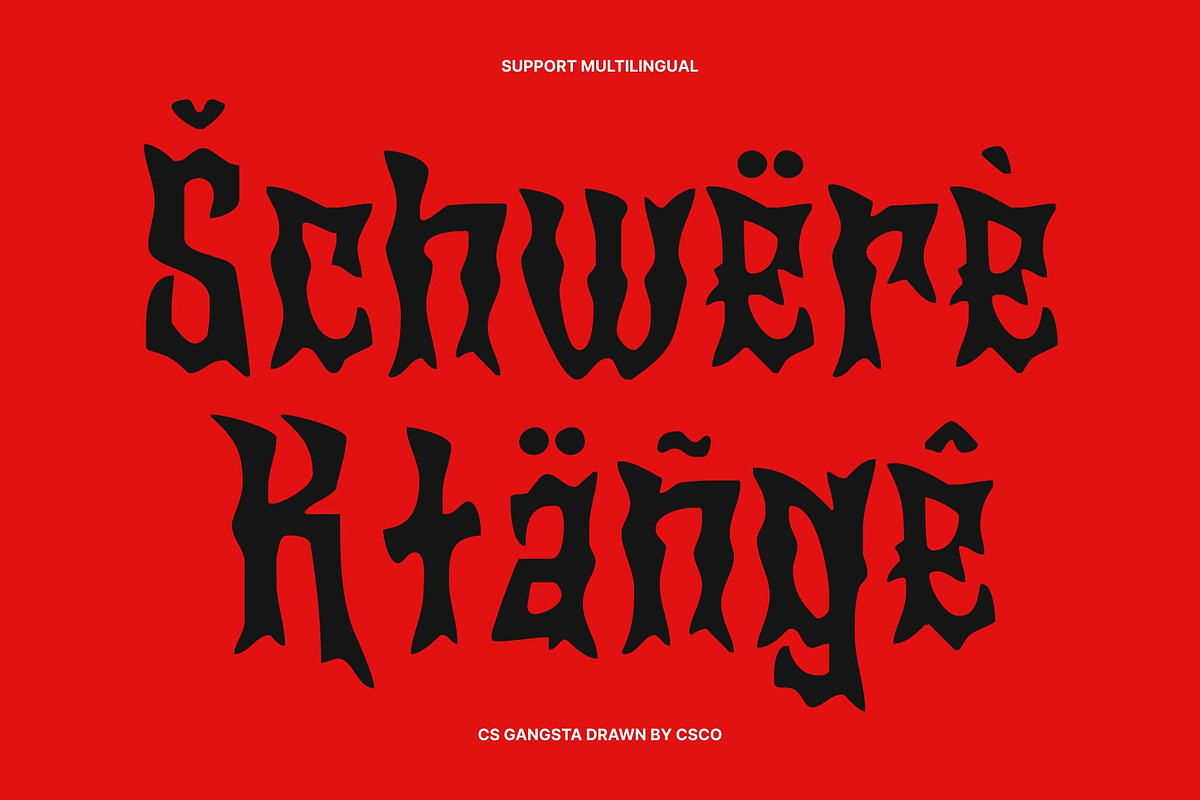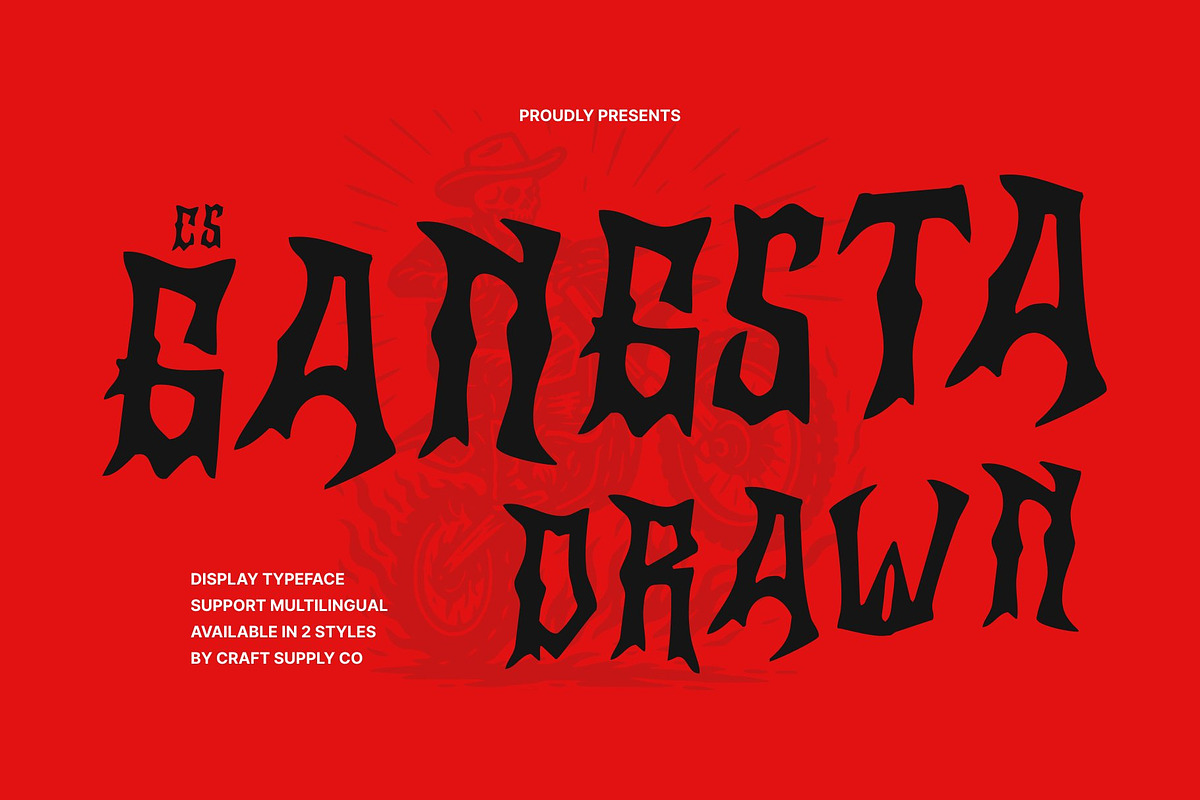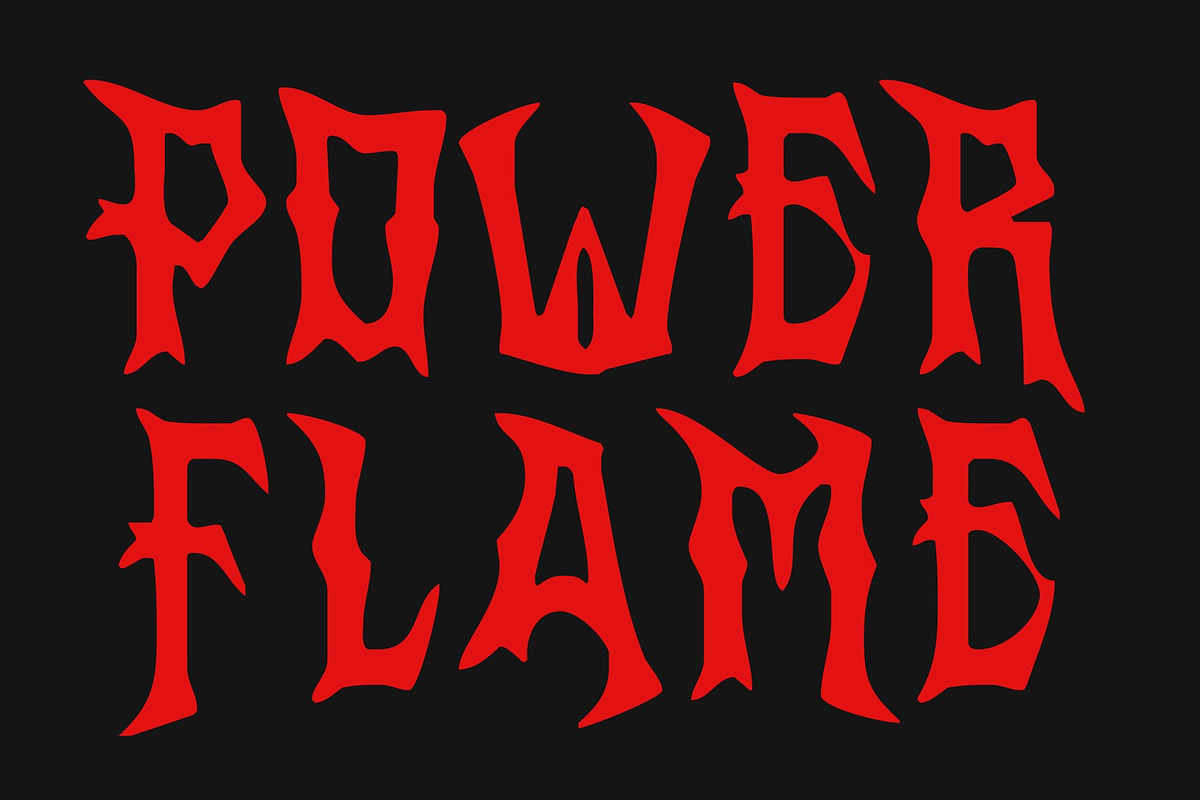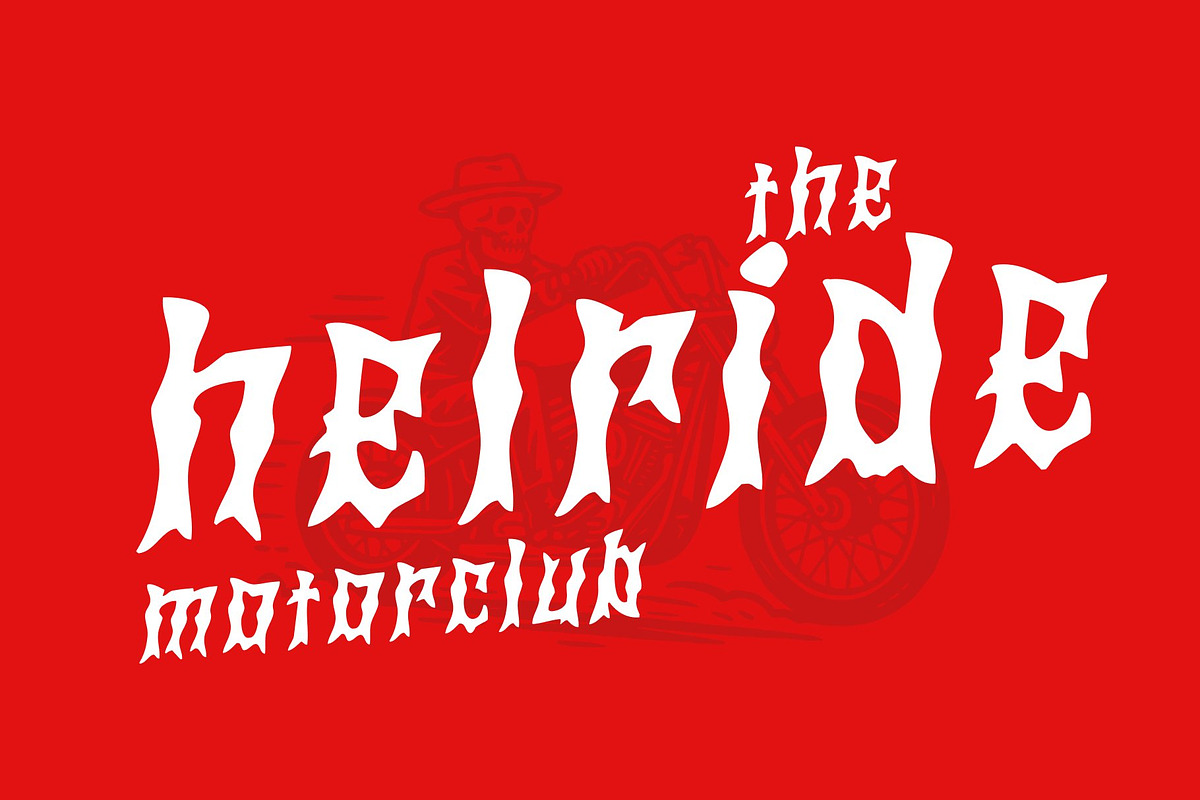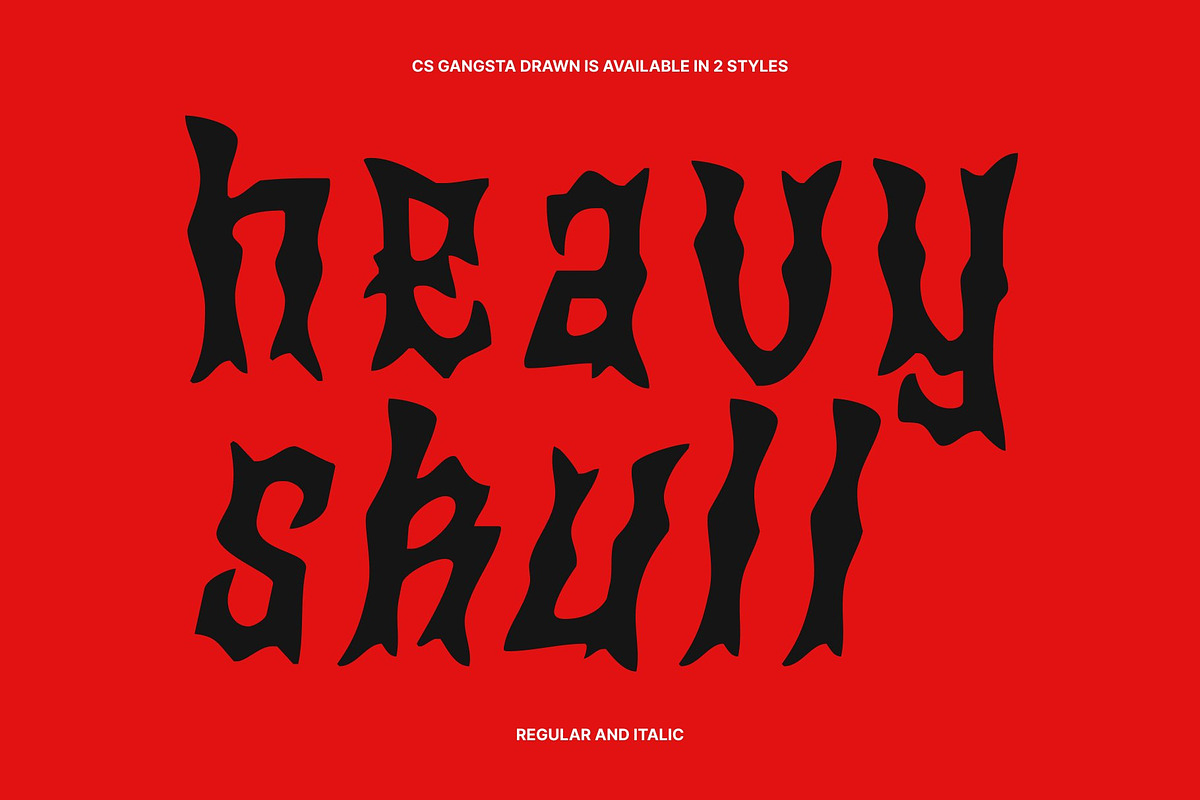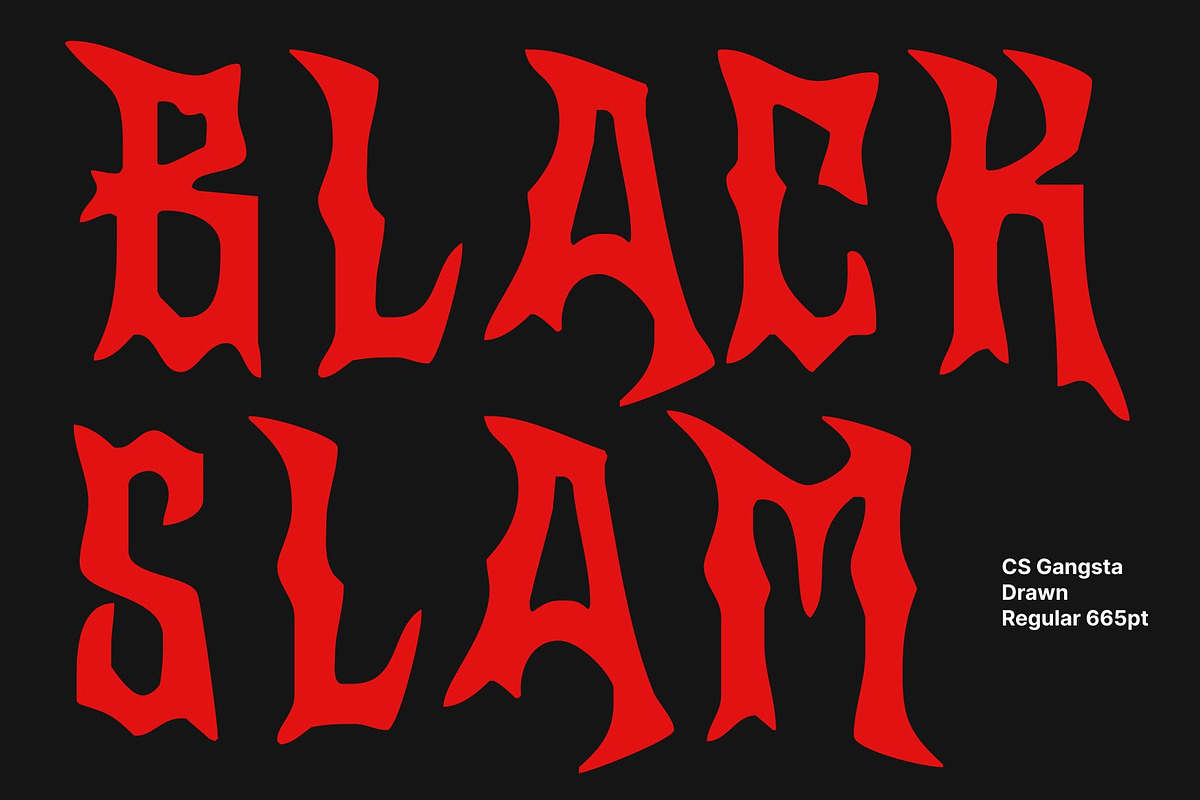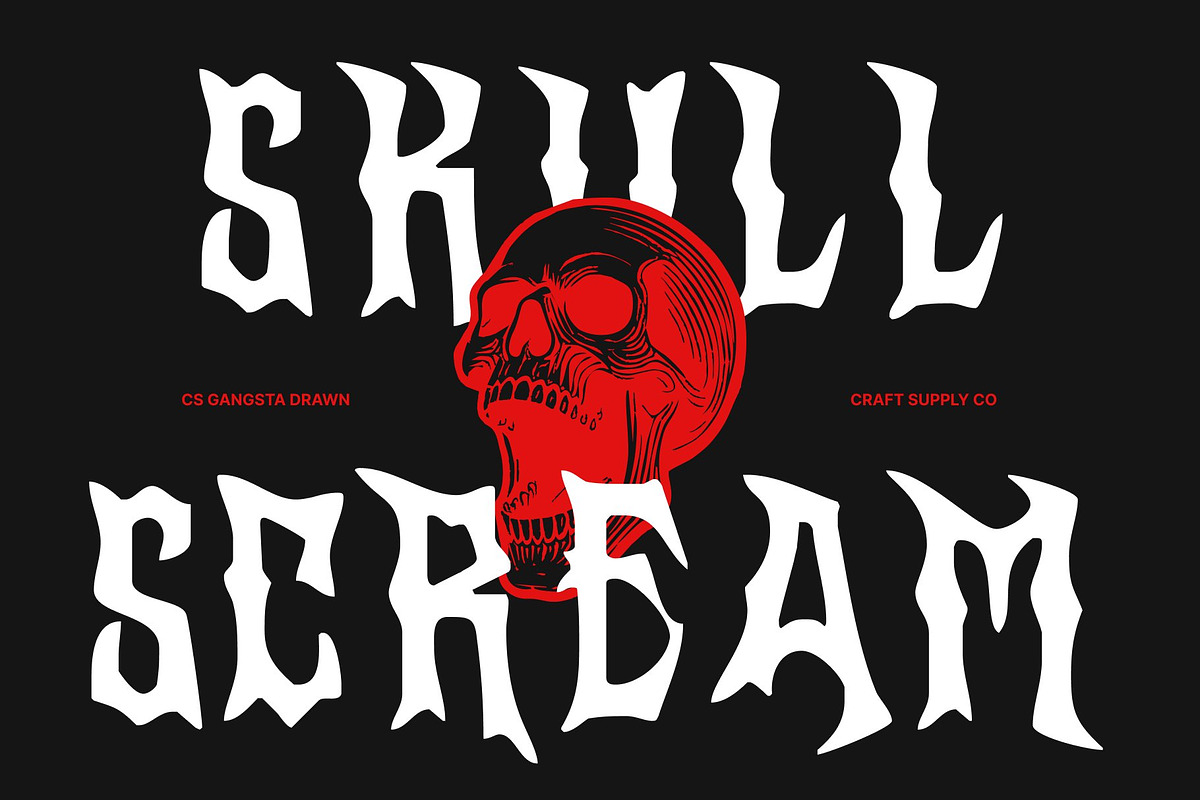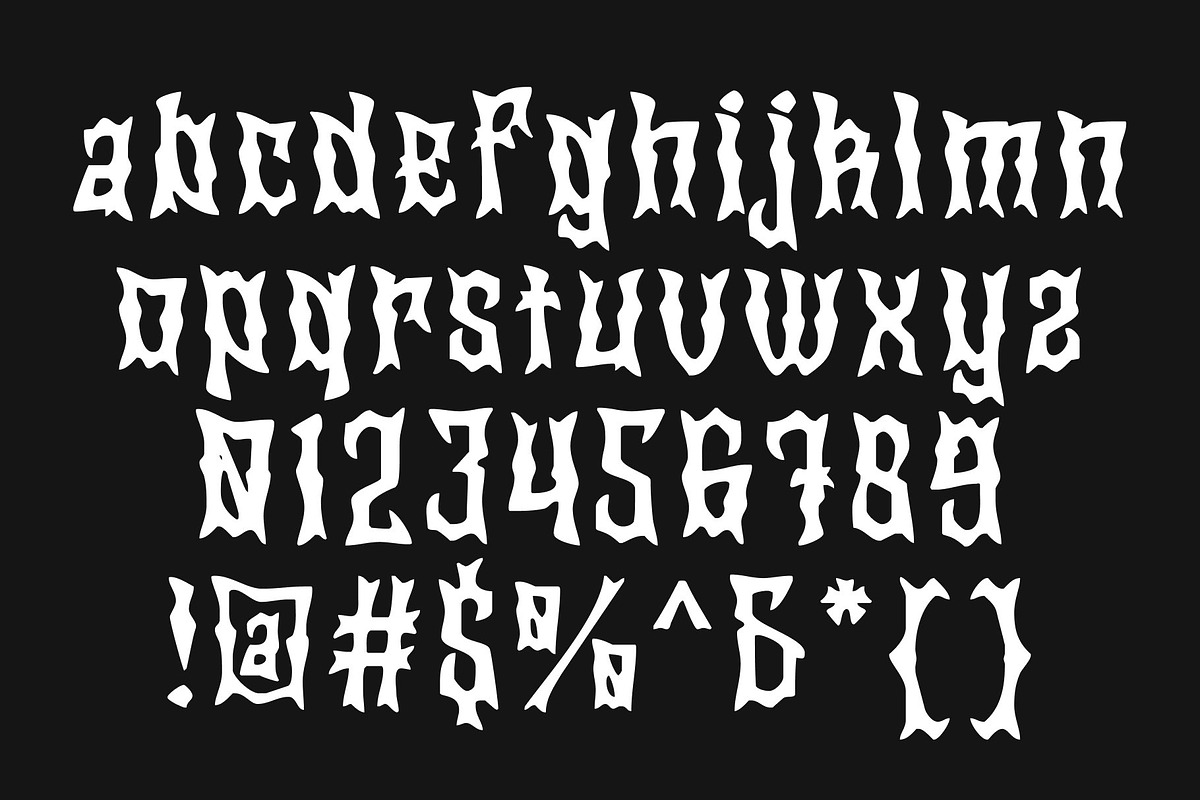
CS Gangsta Drawn
CS Gangsta Drawn – Black Metal Display Font with Chaotic Hand-Drawn Fury
Raw Energy with Dark, Aggressive Style This is a black metal display font built on raw aggression and unrestrained visual chaos. Its jagged spikes and violently sharp silhouettes capture the ferocity of extreme music, making every letter feel powerful, dangerous, and unapologetically intense. This font embraces darkness at its core, creating a visual language that screams rebellion and raw emotion.
Jagged Spikes & Chaotic Strokes for Extreme Impact The defining features of this font are its chaotic strokes and razor-like spikes. Each character is crafted with irregular, aggressively pointed shapes that mimic the wild, uncontrolled energy of black metal aesthetics. The chaotic linework enhances the sense of disorder and brutality, ensuring your typography makes a fierce and unforgettable statement.
Drawn Effect for Authentic Brutality The drawn effect amplifies the rawness of this font, adding gritty, hand-crafted texture to every stroke. These organic irregularities give the font an underground, DIY spirit perfectly aligned with extreme music culture.
Perfect for Band Logos, Posters, and Edgy Visuals This font thrives in bold, rebellious design environments. It’s ideal for band logos, metal posters, album covers, festival artwork, streetwear graphics, or any project demanding intensity and darkness. Whether you’re crafting visuals for extreme music or building an edgy experimental concept, this font delivers the brutal.